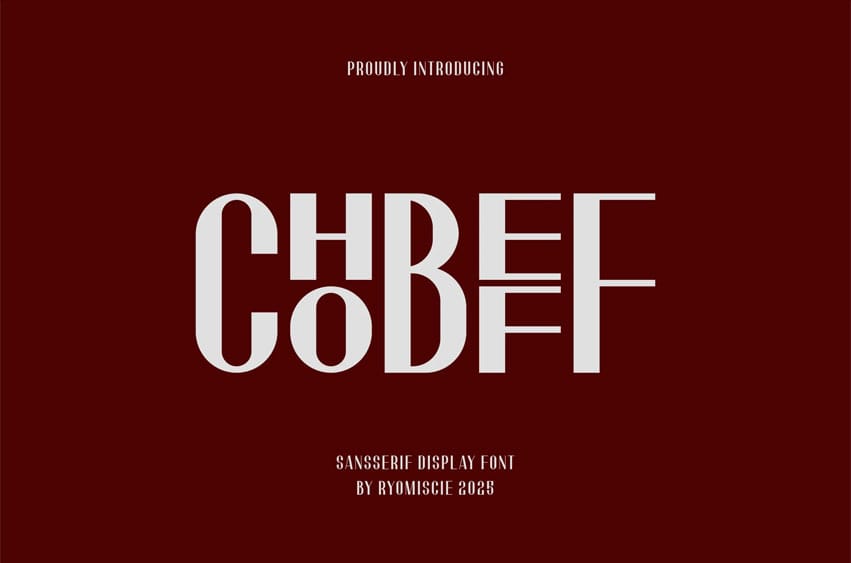
Chobeff Font Modern Font is a bold and authentic display font. The font is suitable for any branding project like logo, t-shirt printing, esport, and many more. outstanding in a wide range of contexts.